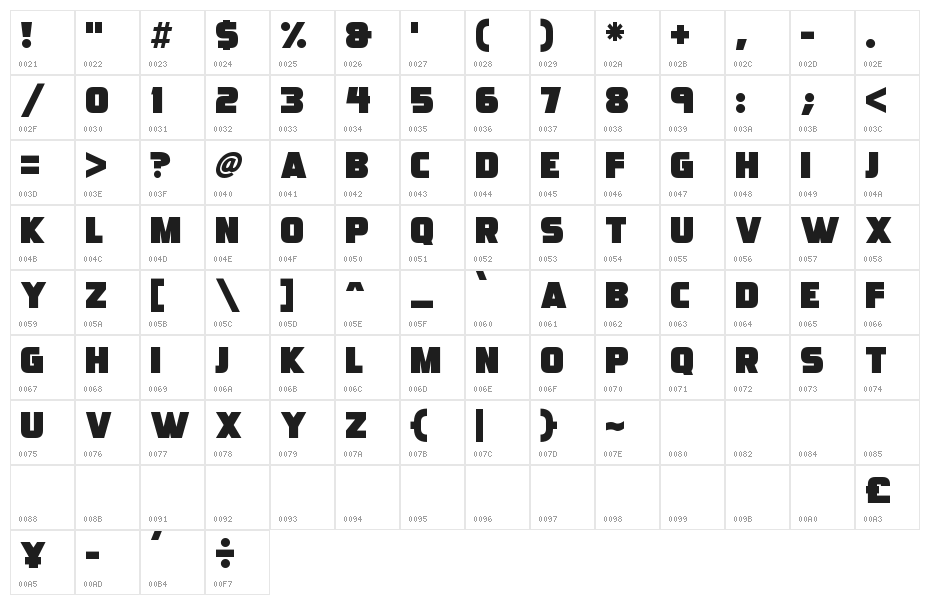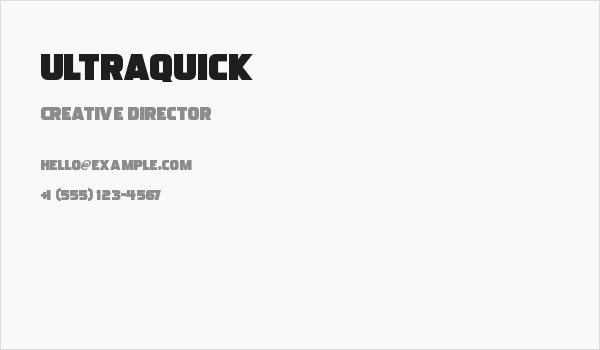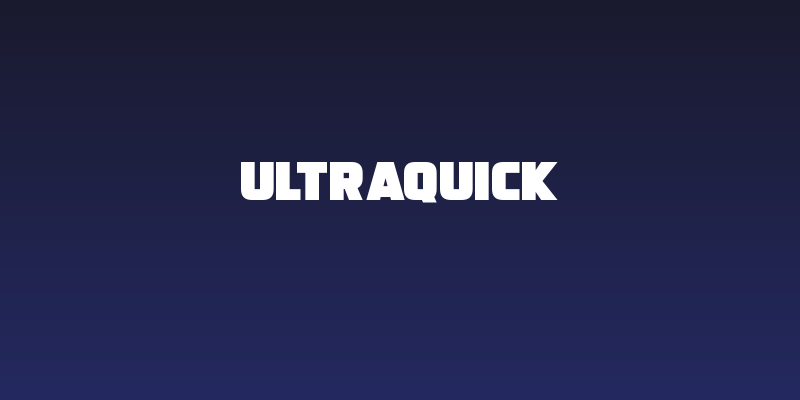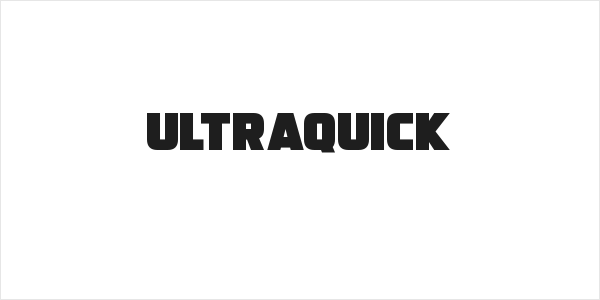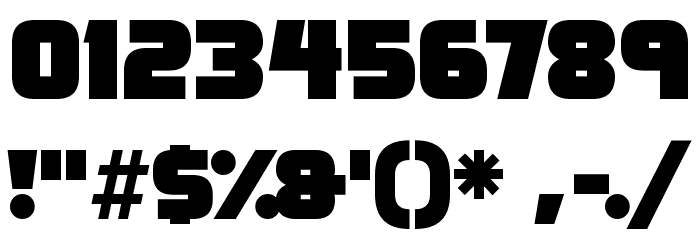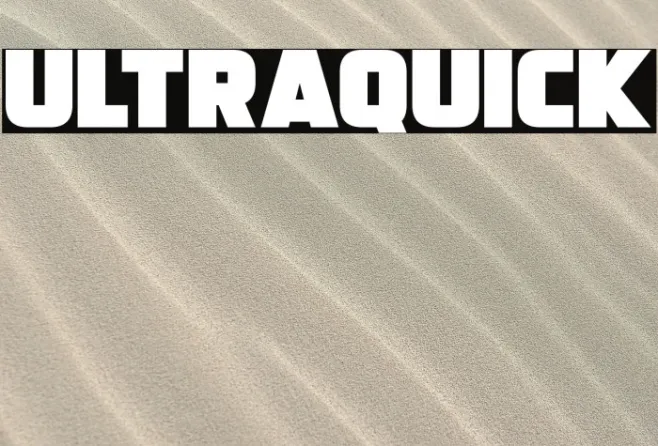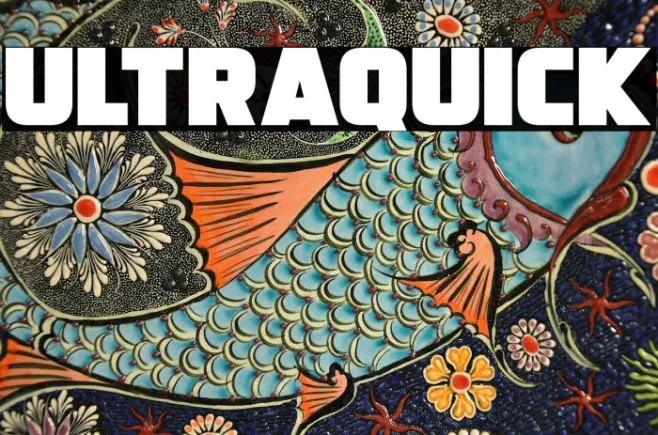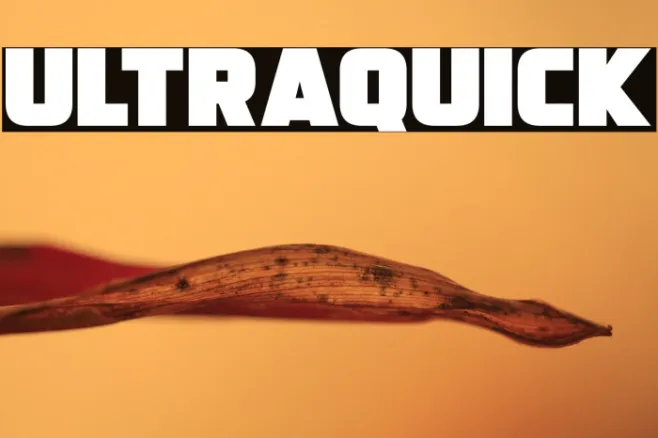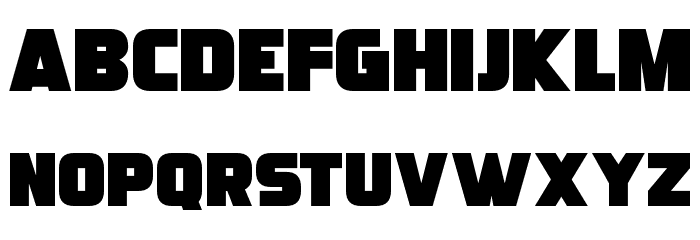
Ultraquick Font
Ultraquick Description
This bold and impactful font features a strong, geometric design with thick, uniform strokes that convey a sense of power and modernity. The uppercase letters are blocky and robust, with a consistent height and width that create a cohesive appearance. The numerals are equally bold, maintaining the same weight and style as the letters, ensuring a harmonious look across all characters. The special characters are designed to match the overall aesthetic, with sharp angles and a solid presence. This font is ideal for making a statement, with its high visibility and striking appearance.
| Proposed Projects | Ideal for headlines, posters, branding, and any project requiring a strong visual impact. |